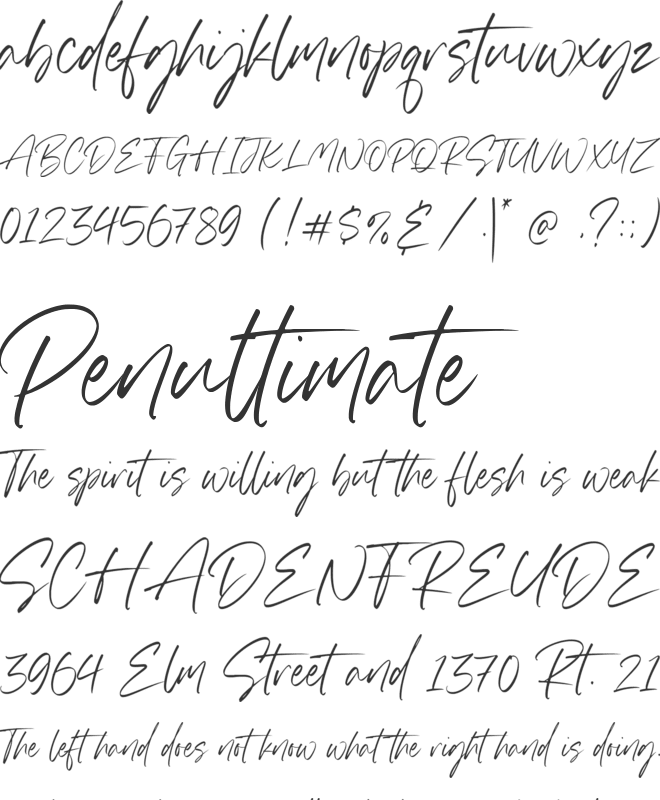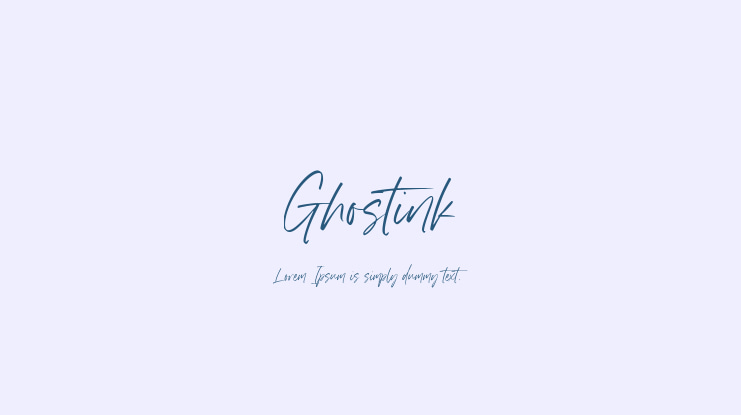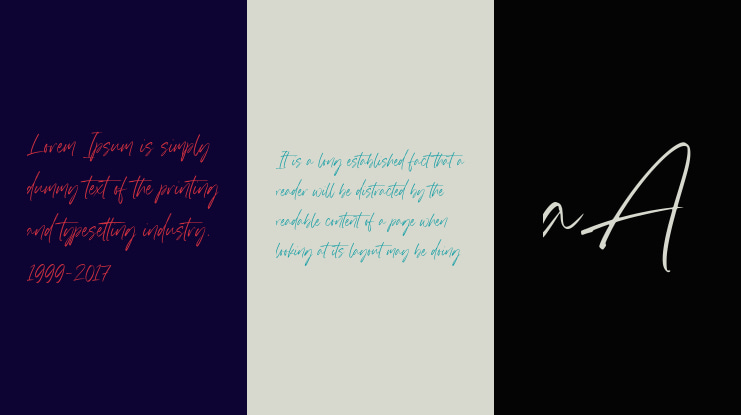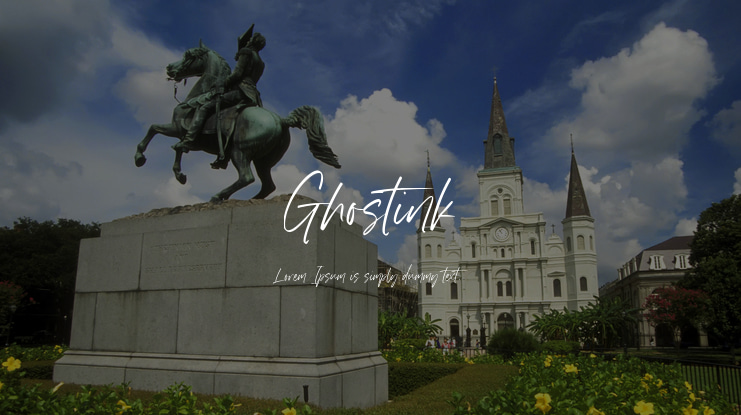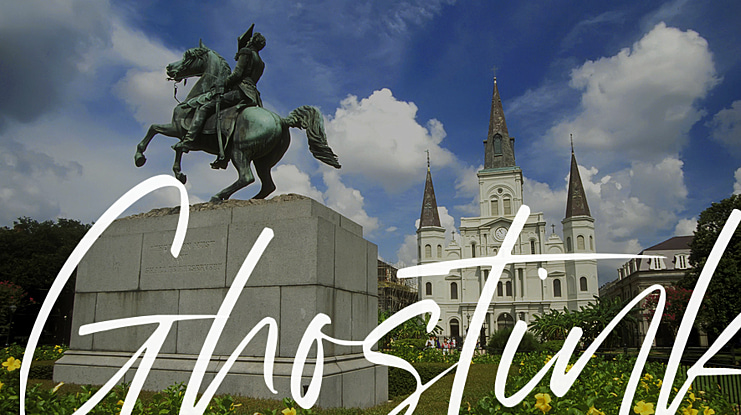
Ghostink Font
Gohstink feels equally charming and elegant. It looks stunning on wedding invitations, thank you cards, quotes, greeting cards, logos, business cards and every other design which needs a handwritten touch.